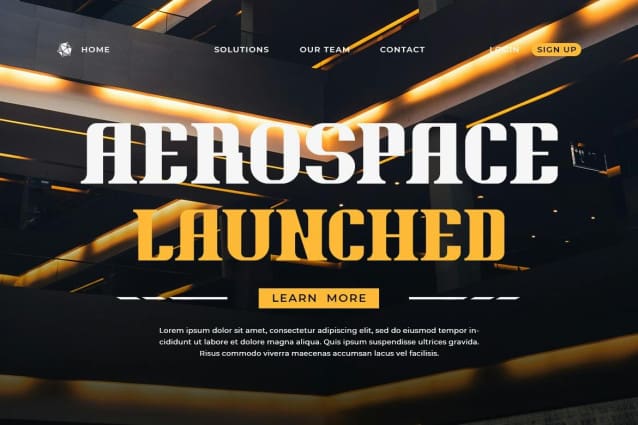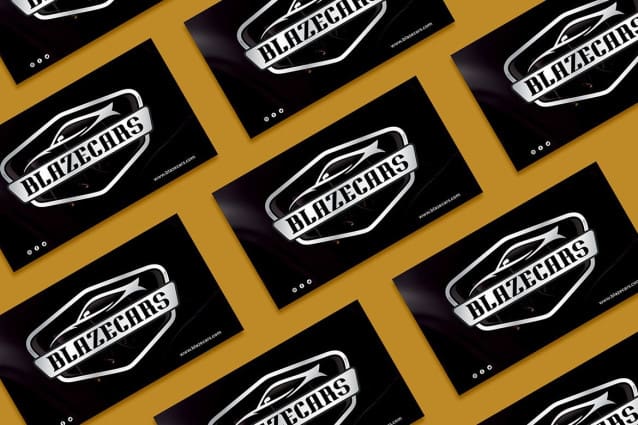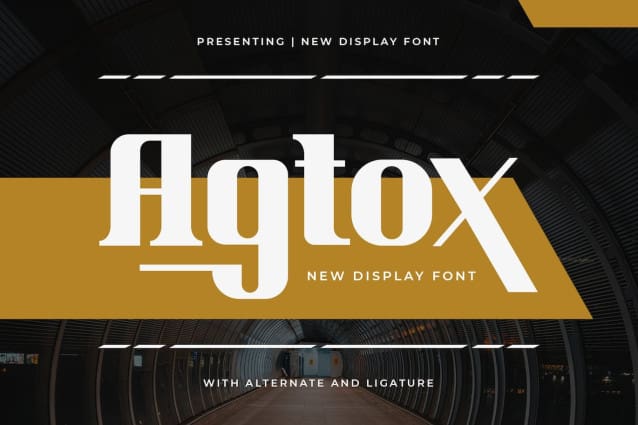
Agtox Font
Agtox Font, an innovative new display font that redefines the art of typography for your creative projects. With its fresh and striking letters, “Agtox” offers a contemporary and bold look, perfect for standing out. Each character is meticulously designed to bring a modern touch to your designs, making them ideal for cutting-edge branding, impactful posters, futuristic layouts, etc.
Embrace the avant-garde style of “Agtox Font,” which effortlessly elevates your creations. Whether you’re creating cutting-edge logos, eye-catching editorial designs, sleek technology interfaces, or engaging social media graphics, this font will captivate your audience with its fresh and innovative style.
Enter a new era of typography with “Agtox” and make your creations stand out in the world of modern creativity.